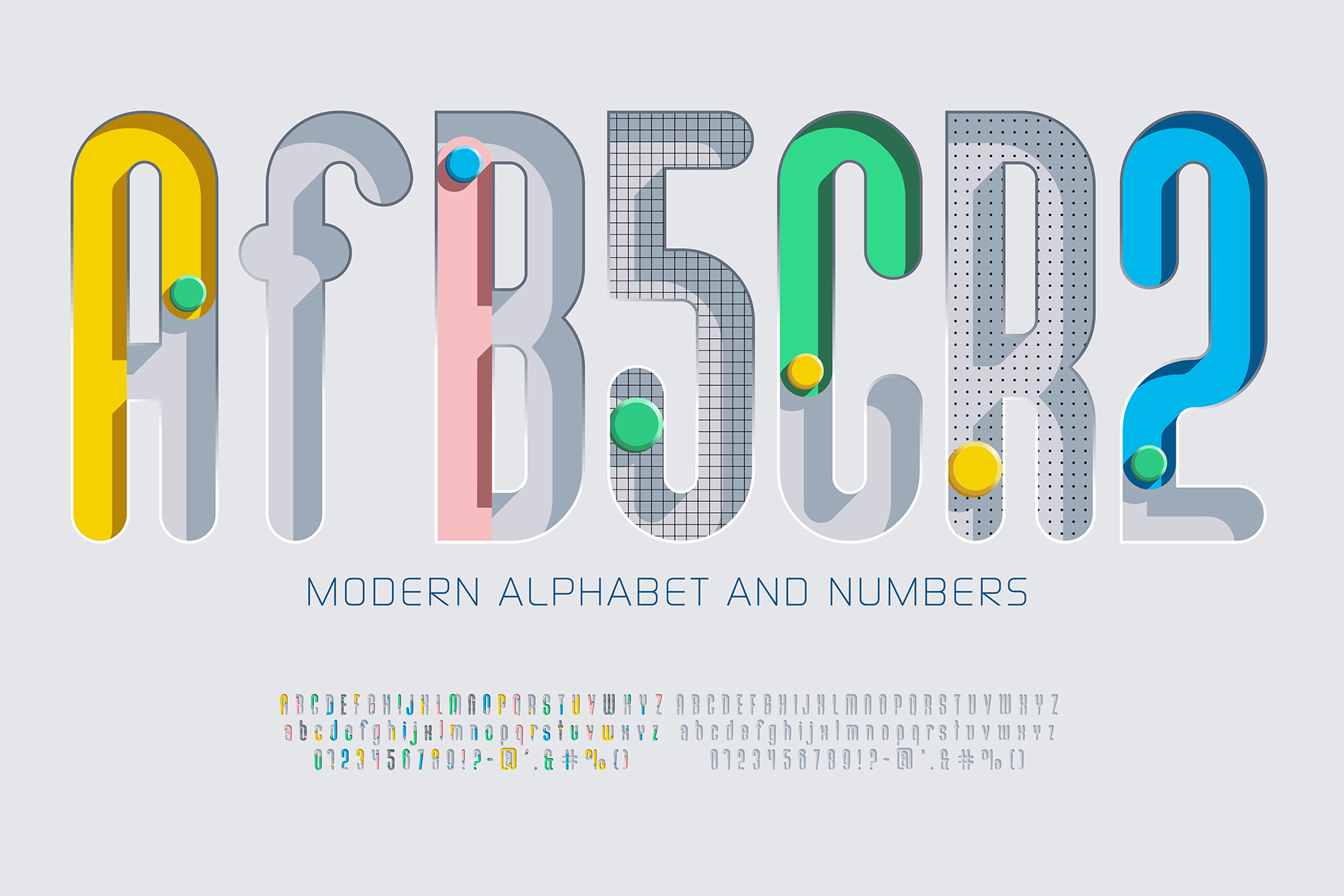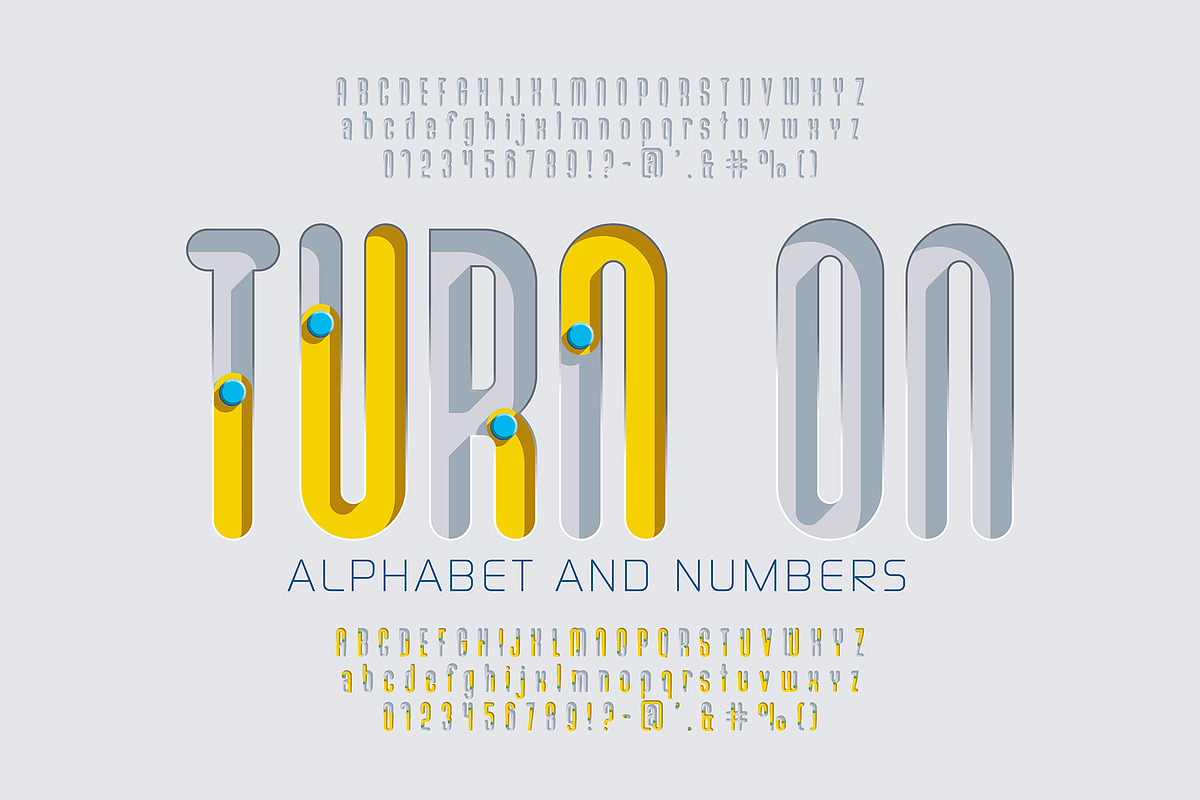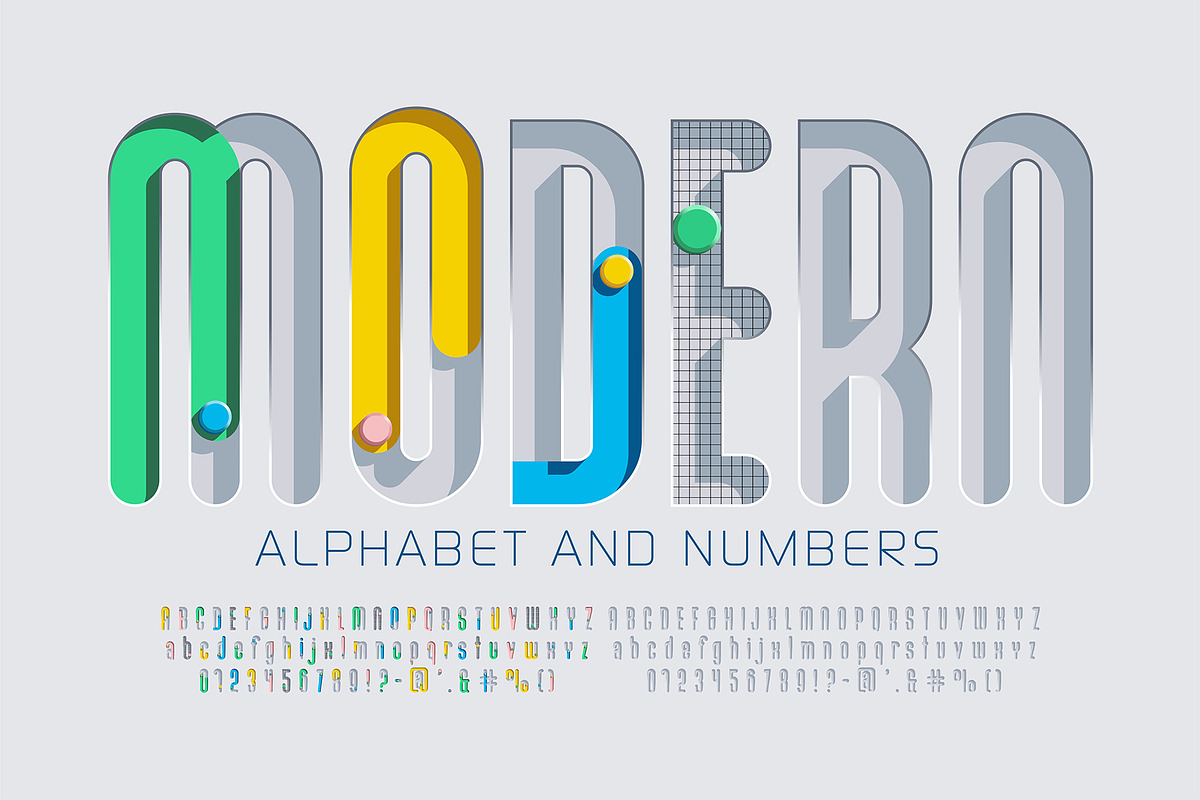
Futuristic Modern Bold Font
Modern Futuristic Bold Alphabet. Colorful Digital Typeface with Letters and Numbers for Tech Logos, Posters, and Contemporary Design - EPS (Not a Font!)
- Uppercase letters A - Z
- Lowercase letters A - Z
- Numbers 0 - 9
- Symbol set
- Clean, modern, and unique alphabet design